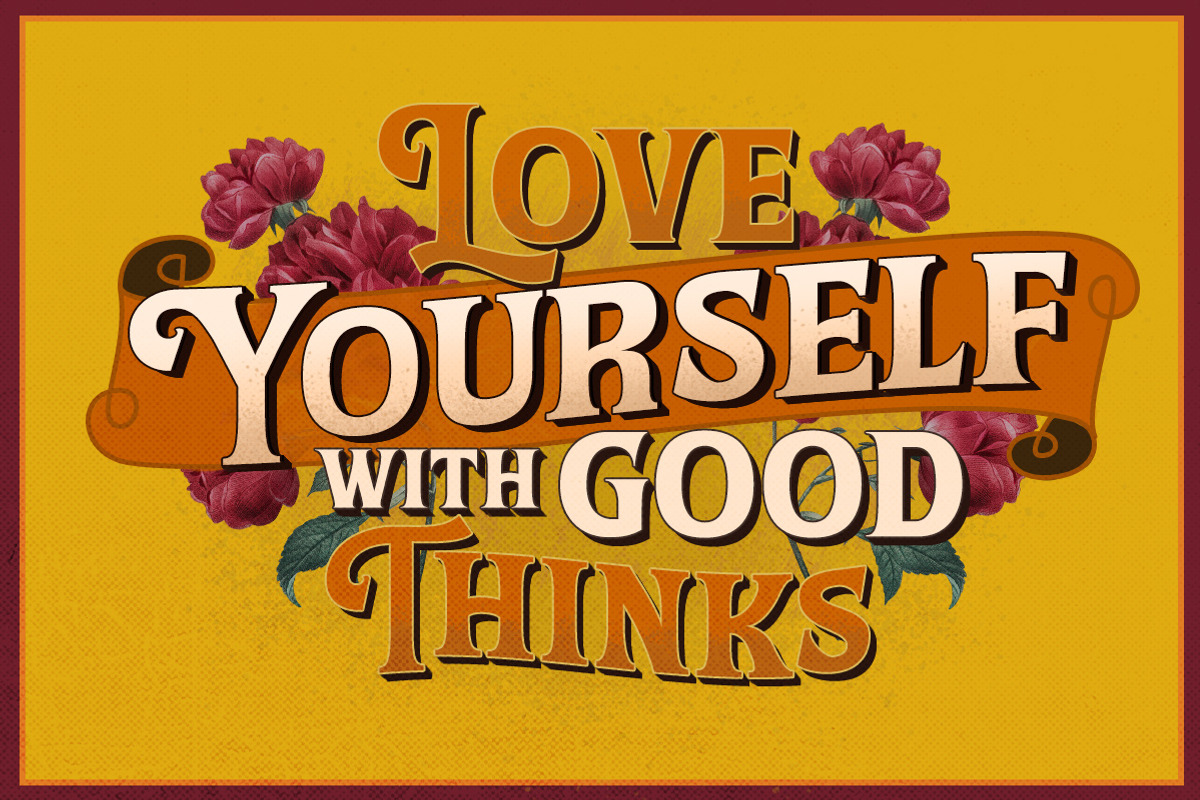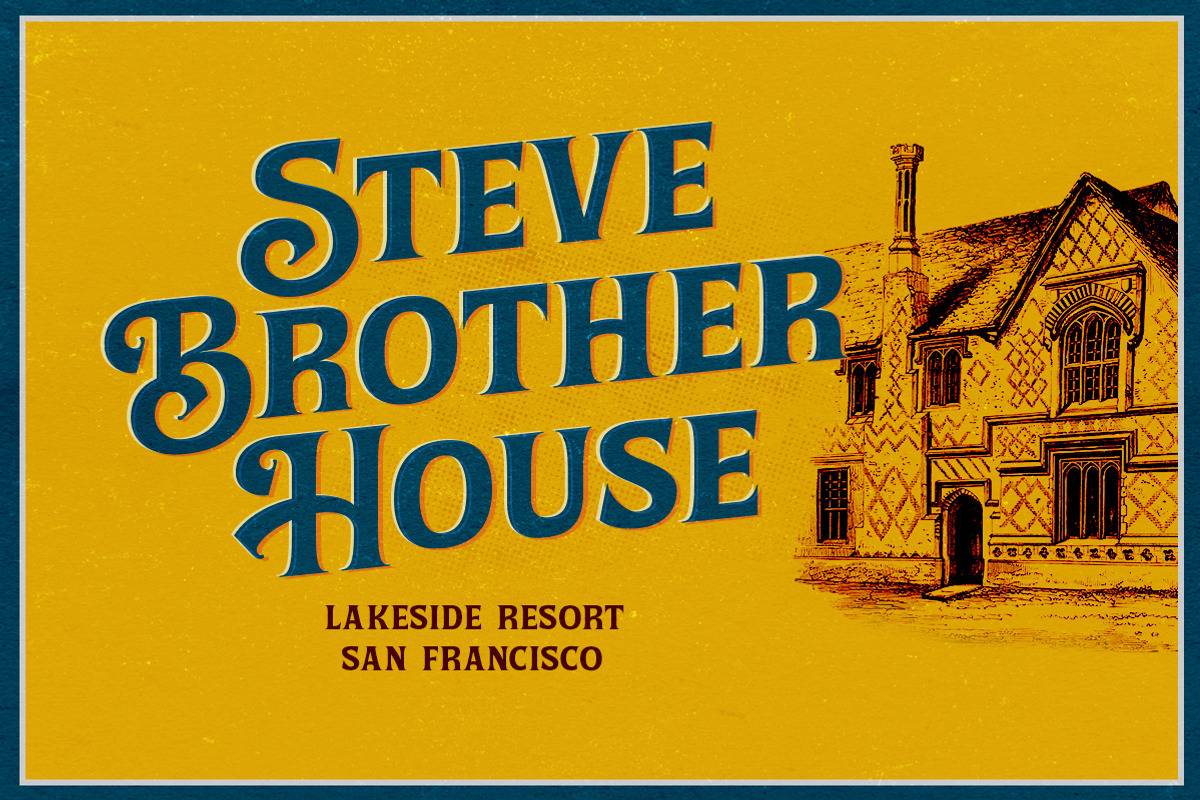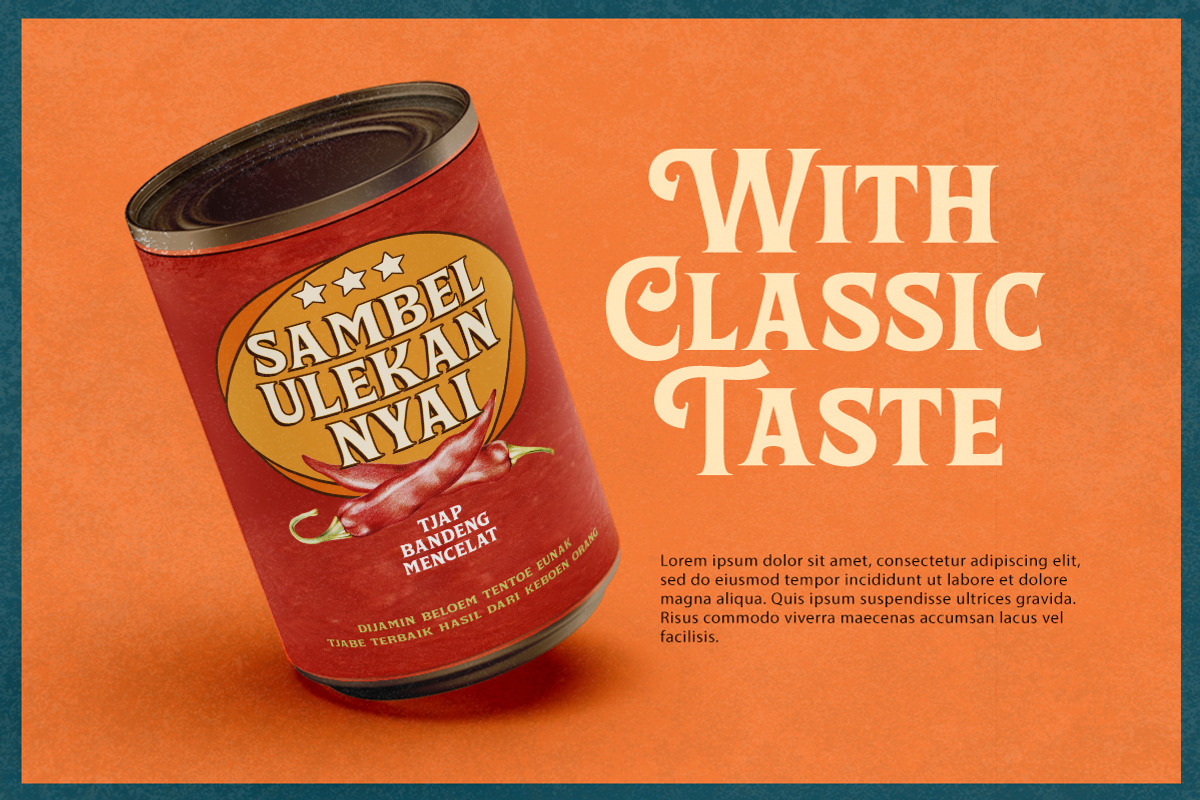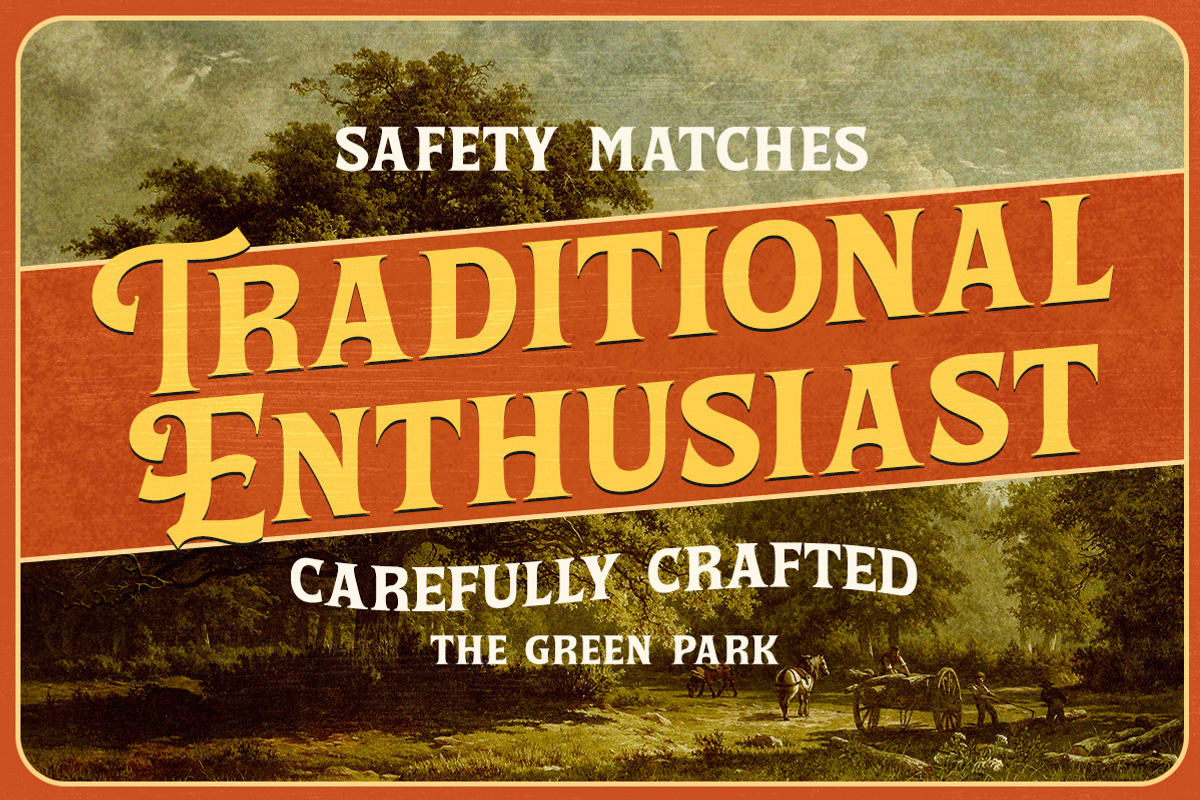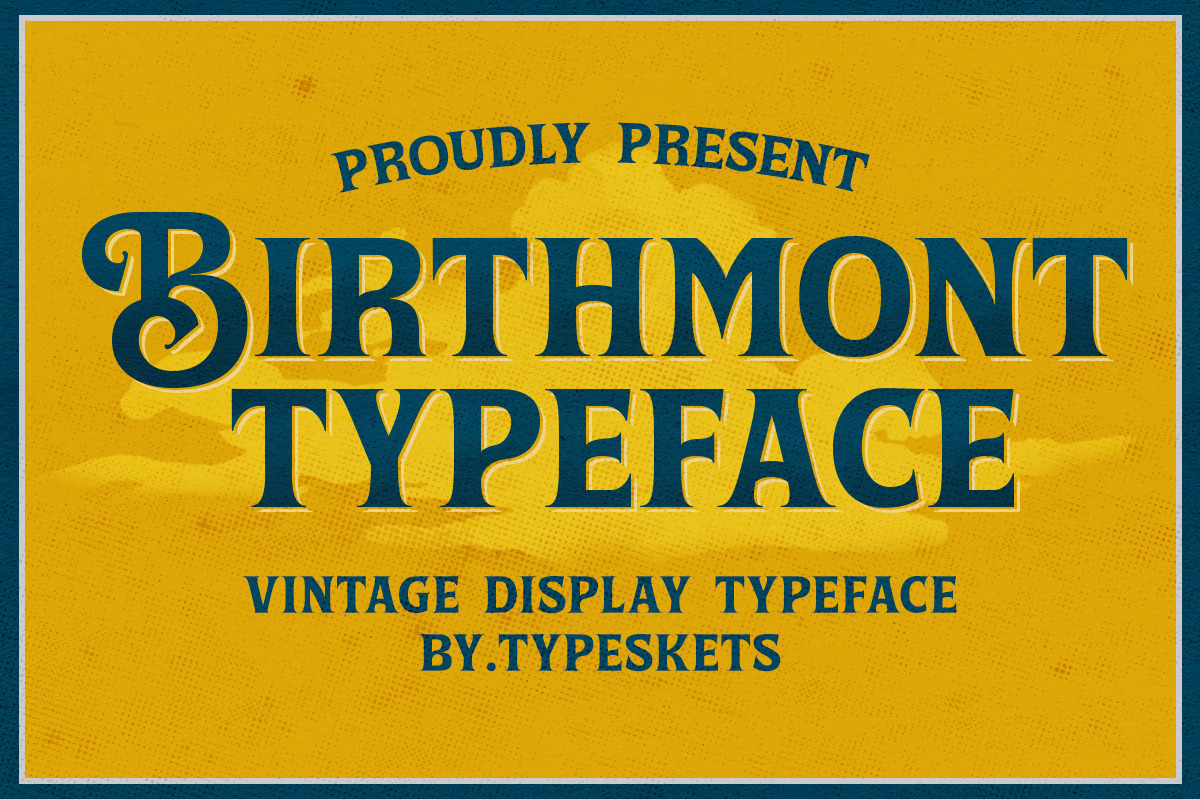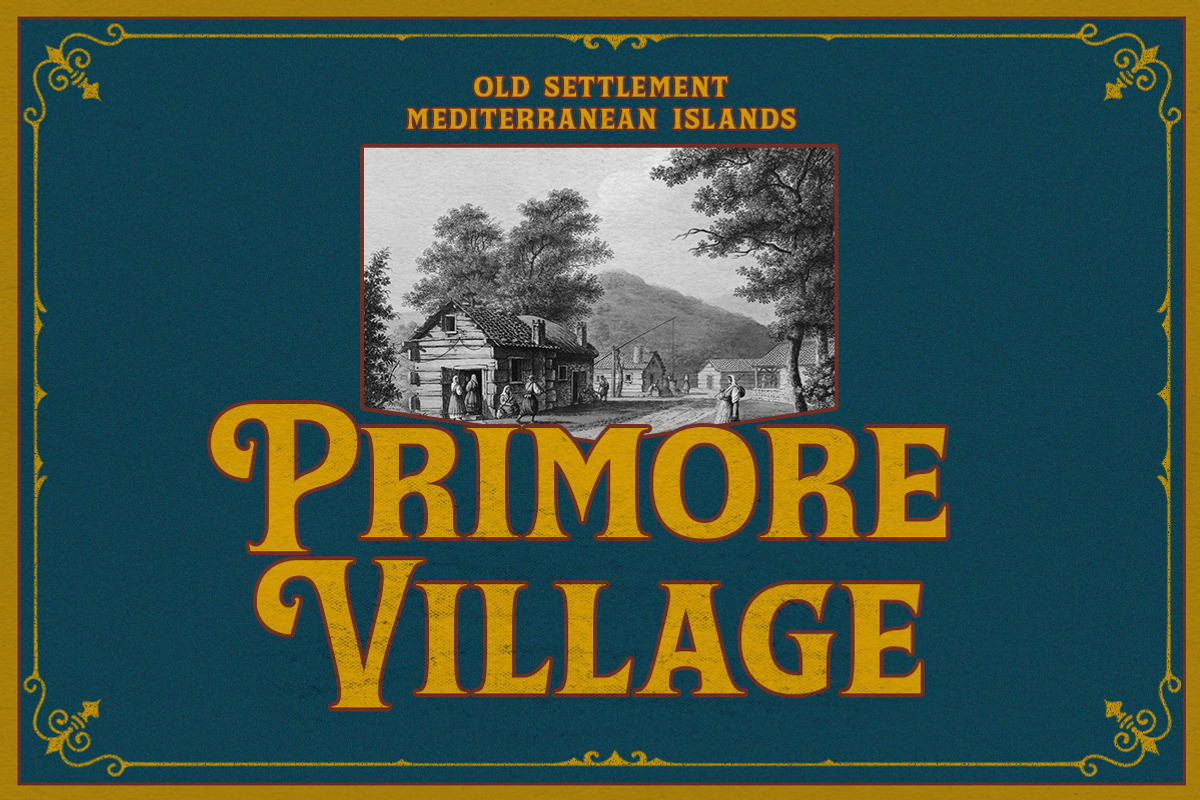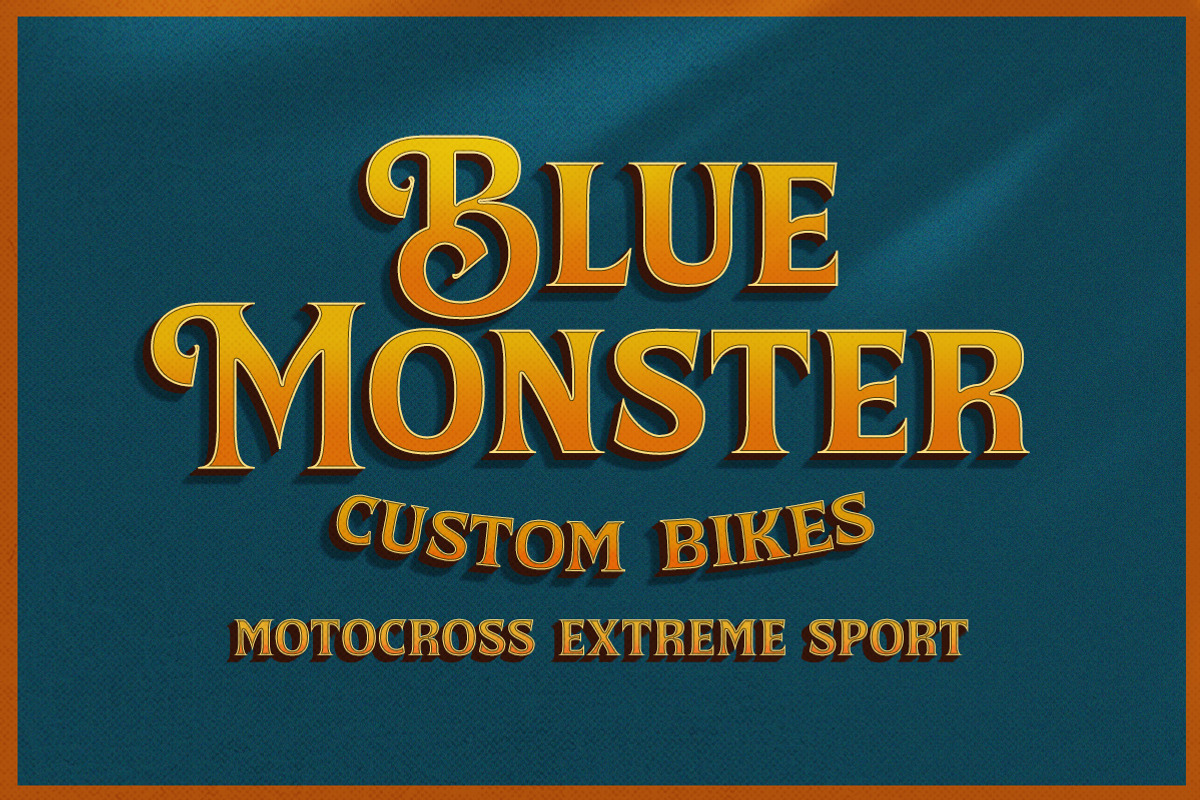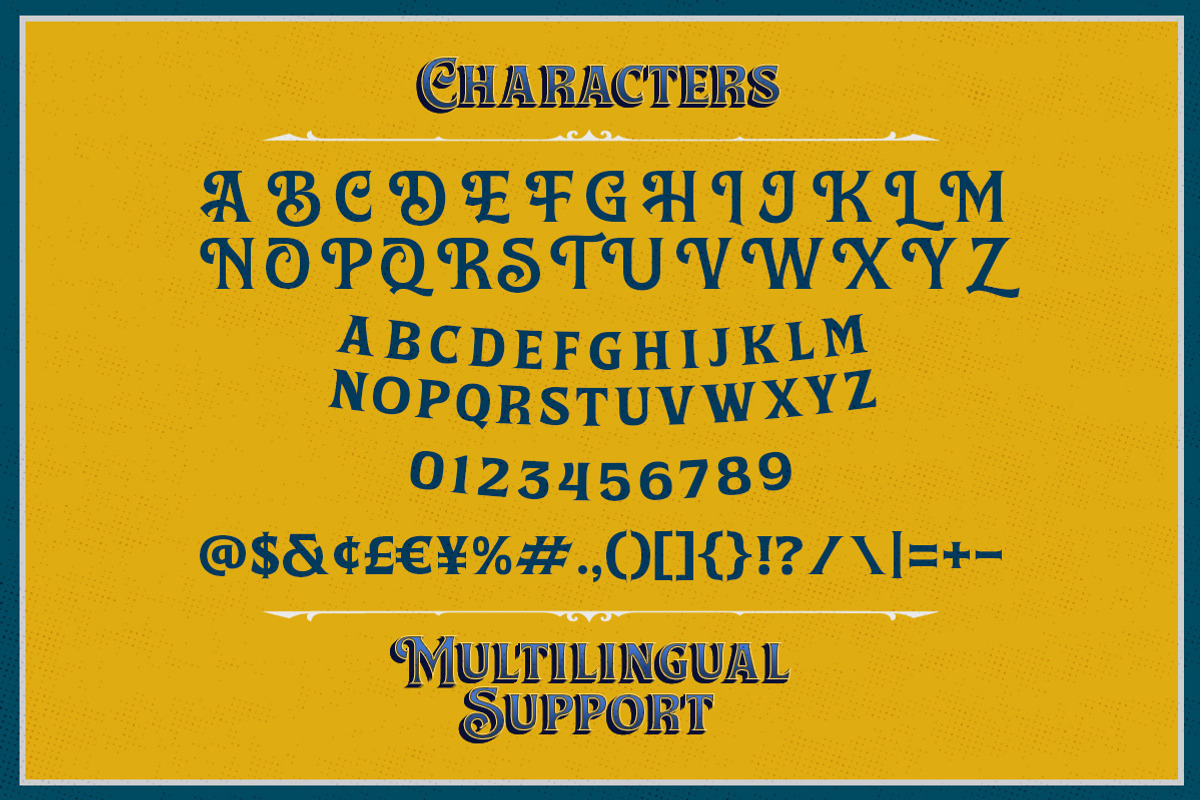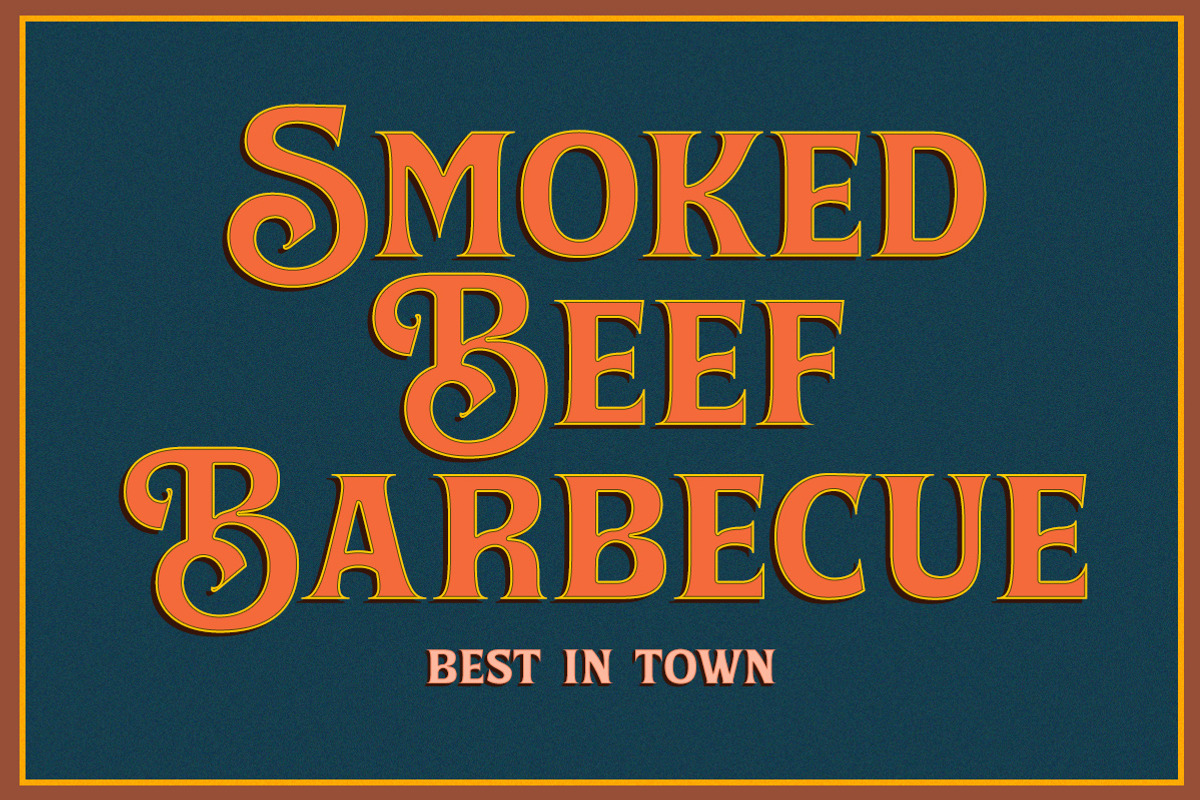
Birthmont | Vintage Typeface
Birthmont is a vintage serif style font, capital letters with interesting combinations, very suitable for use on label designs, titles, or other vintage themed designs.